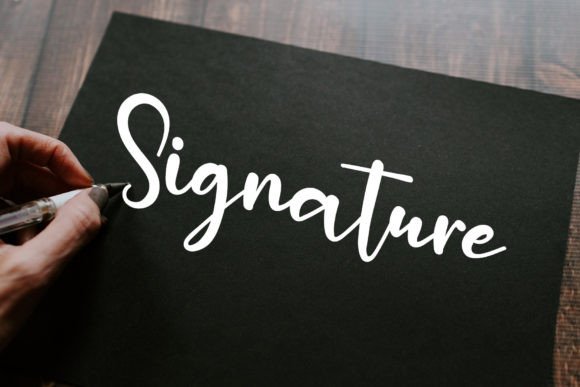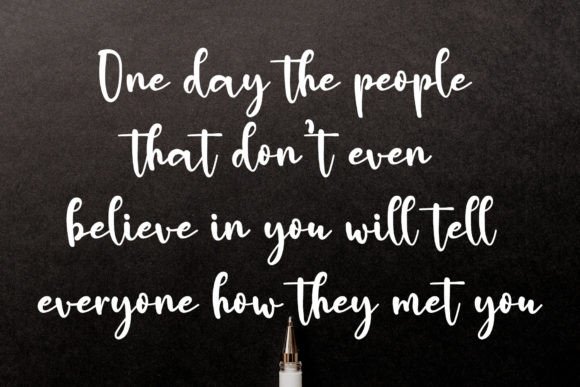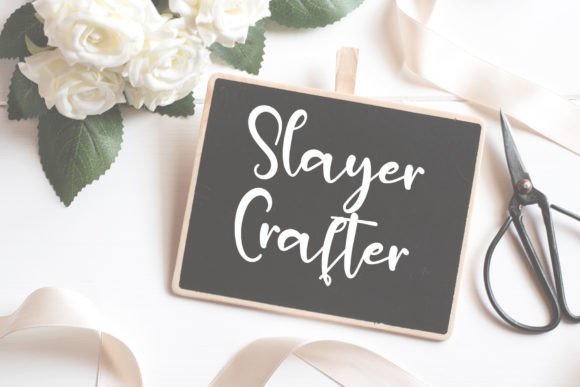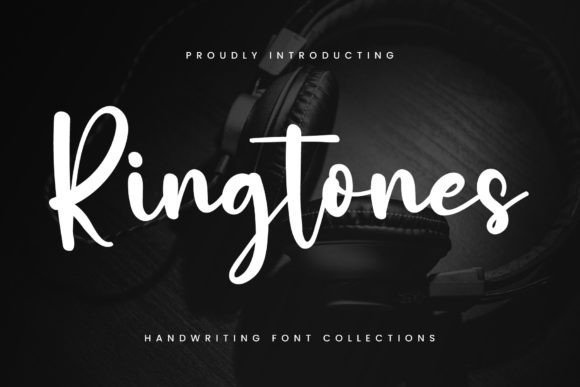
Introduction to Ringtones Font
Ringtones is a beautiful and refined handwritten font.
Classy and modern, it is perfect for logos, branding, invitations, stationery, wedding designs, social media posts, and much more .
Ringtones Font offers exceptional quality and versatility, making it a valuable addition to your design toolkit. Whether you’re creating for personal projects or commercial use, Ringtones Font delivers professional results.